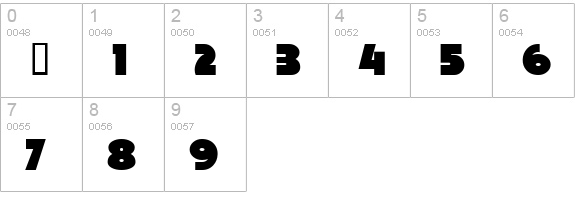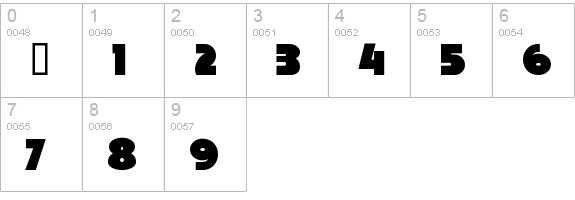
MinstrelPosterWHG is a stunning and versatile font that embodies the essence of a classic minstrel poster. This font is perfect for adding a touch of vintage charm to your designs, whether it be for posters, invitations, or any other creative project. With its elegant and intricate letterforms, MinstrelPosterWHG captures the essence of a bygone era. The strong and bold strokes give it a striking presence, while the delicate curves add a sense of grace and refinement. One of the best things about MinstrelPosterWHG is that it is free! Yes, you read that right. This incredible font is freely available to download at FontsMarket.com. Whether you are a graphic designer, a typographer, or simply someone who appreciates beautiful fonts, you can now enjoy the elegance and charm of MinstrelPosterWHG without spending a dime. The versatility of this font is truly remarkable. It can be used in a variety of design projects, from vintage-themed advertisements to wedding invitations and everything in between. Its timeless appeal makes it a go-to choice for any creative endeavor. The attention to detail in MinstrelPosterWHG is truly exceptional. Each letter has been meticulously crafted to ensure maximum legibility and visual impact. The font's proportions and spacing have been carefully balanced to create a harmonious and pleasing aesthetic. So, whether you are a professional designer looking to add a touch of nostalgia to your work or an amateur enthusiast eager to experiment with different fonts, MinstrelPosterWHG is the perfect choice. And the best part? It's free! Don't miss out on the opportunity to enhance your designs with this beautiful and freely available font. Download MinstrelPosterWHG today at FontsMarket.com and let your creativity soar.